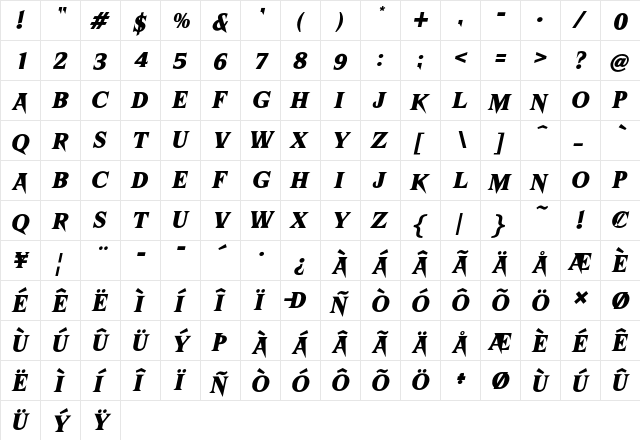
American Frights Italic Regular
Design Context for American Frights Italic Typeface
American Frights Italic takes a measured approach to typography — its balanced proportions and neutral character make it a reliable workhorse for both digital and print work. Its italic angle brings a sense of urgency and motion to the letterforms.
Pro Tip: Use American Frights Italic for emphasis, pull quotes, and subheadings where its slanted energy can add rhythm to the layout.